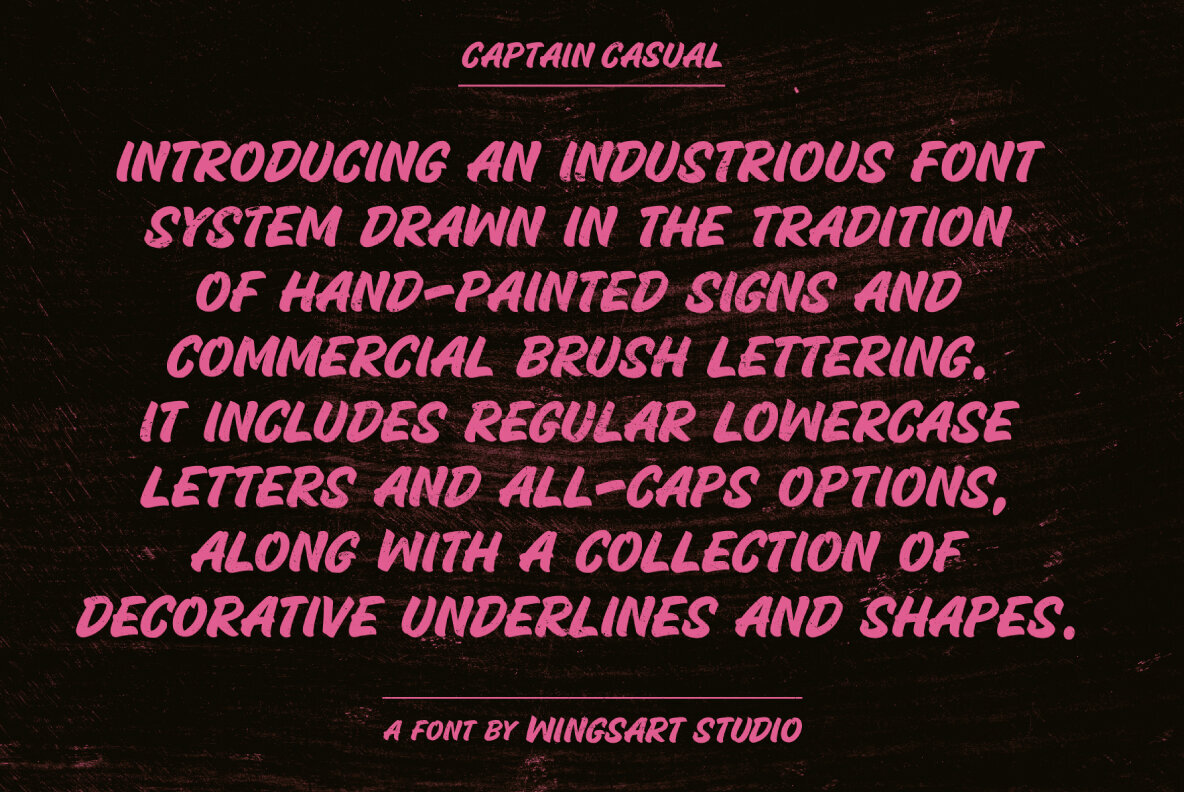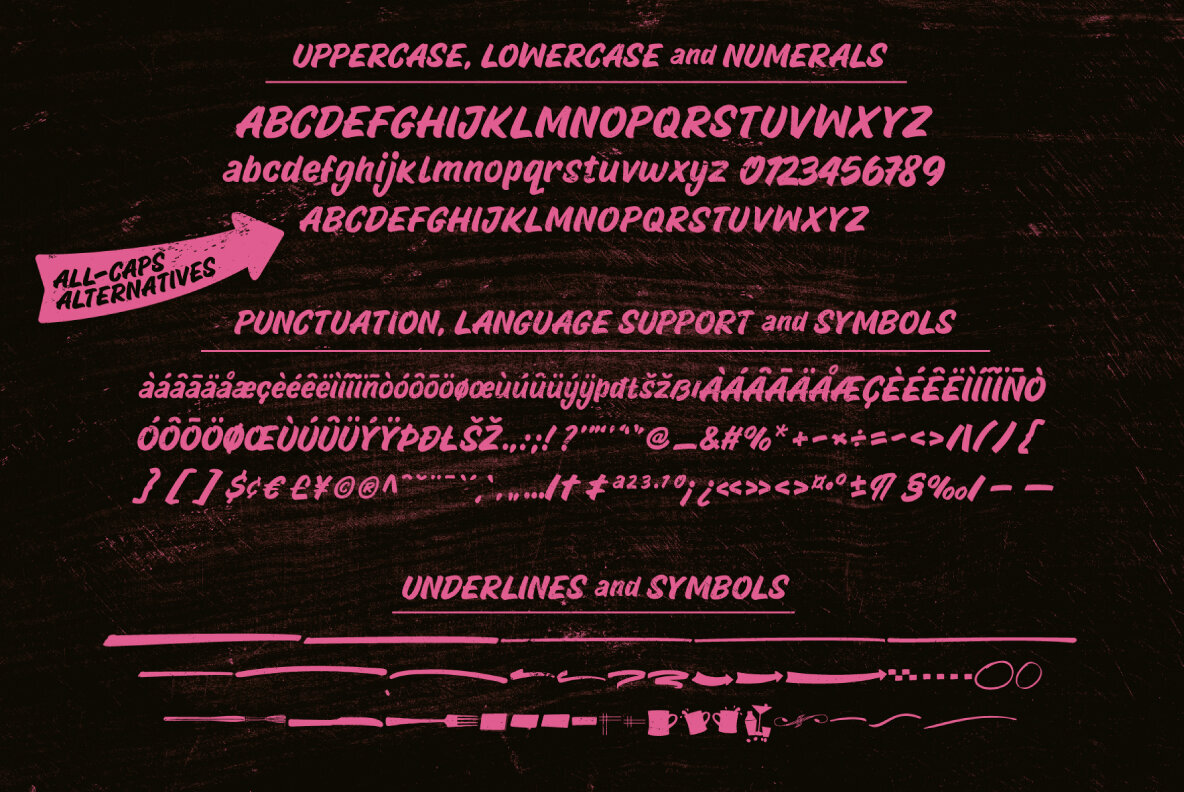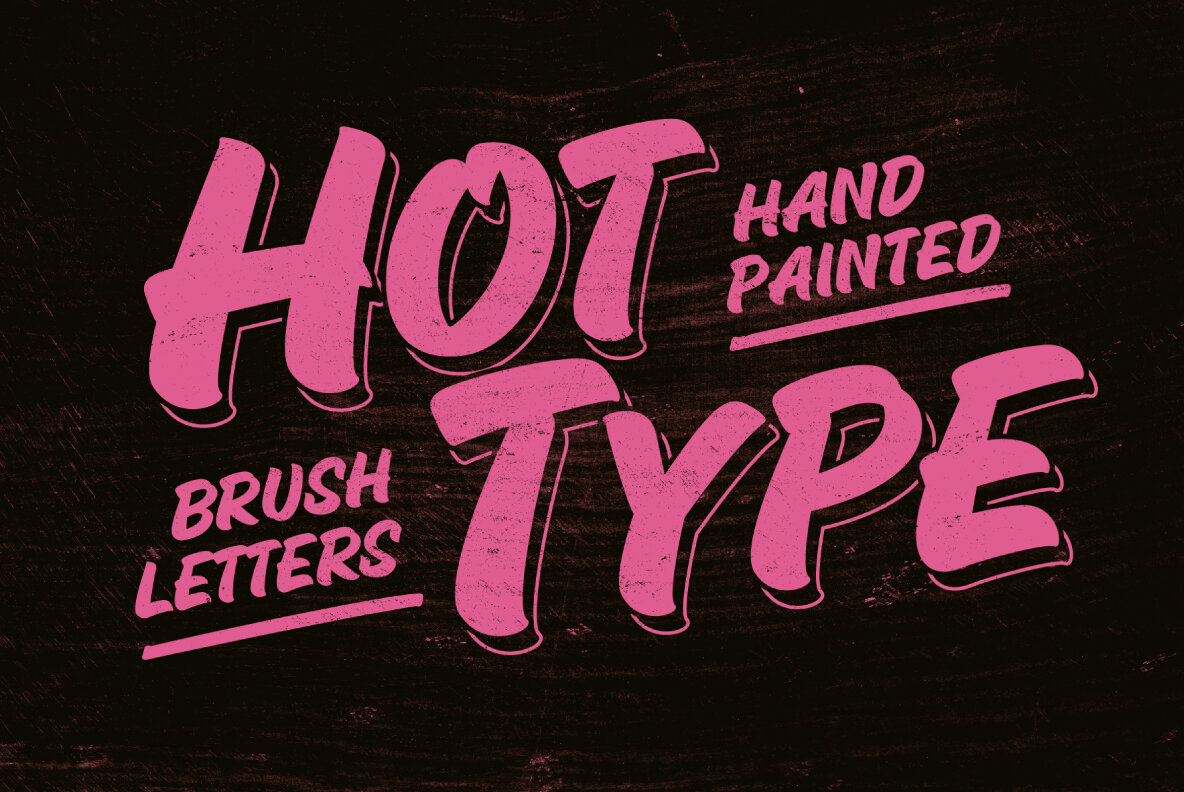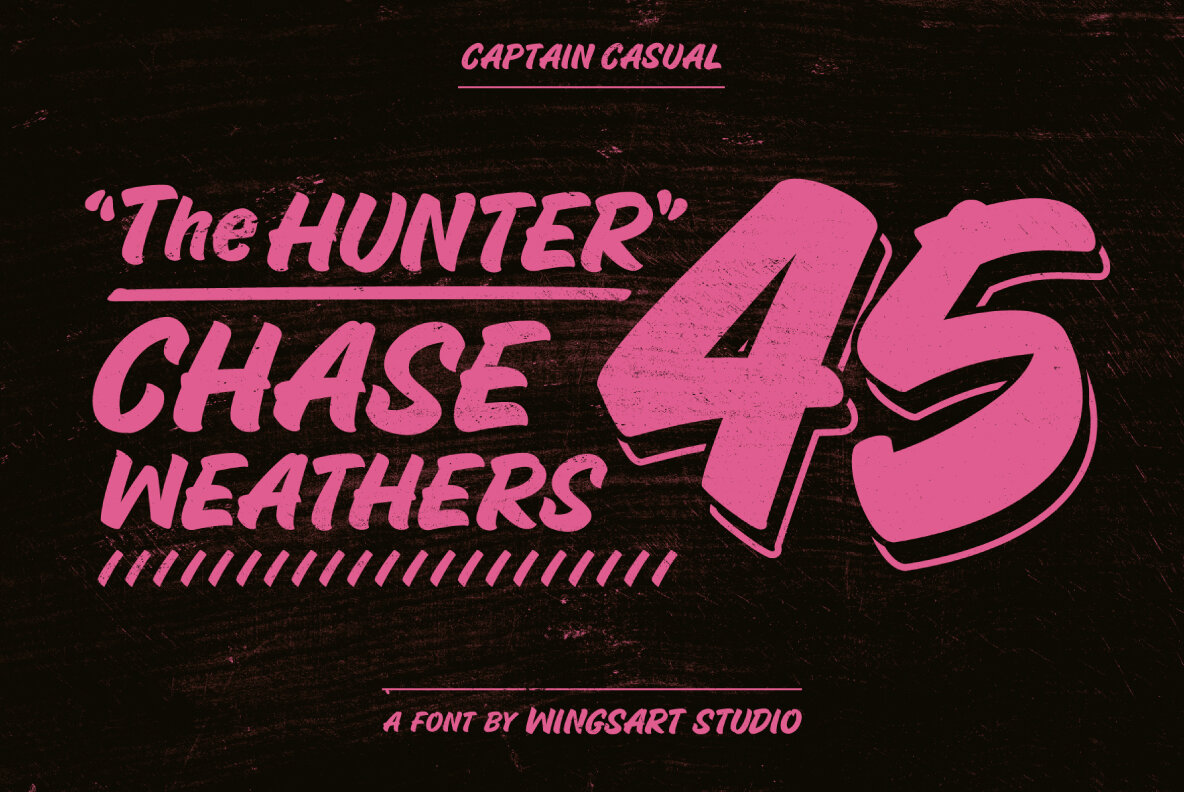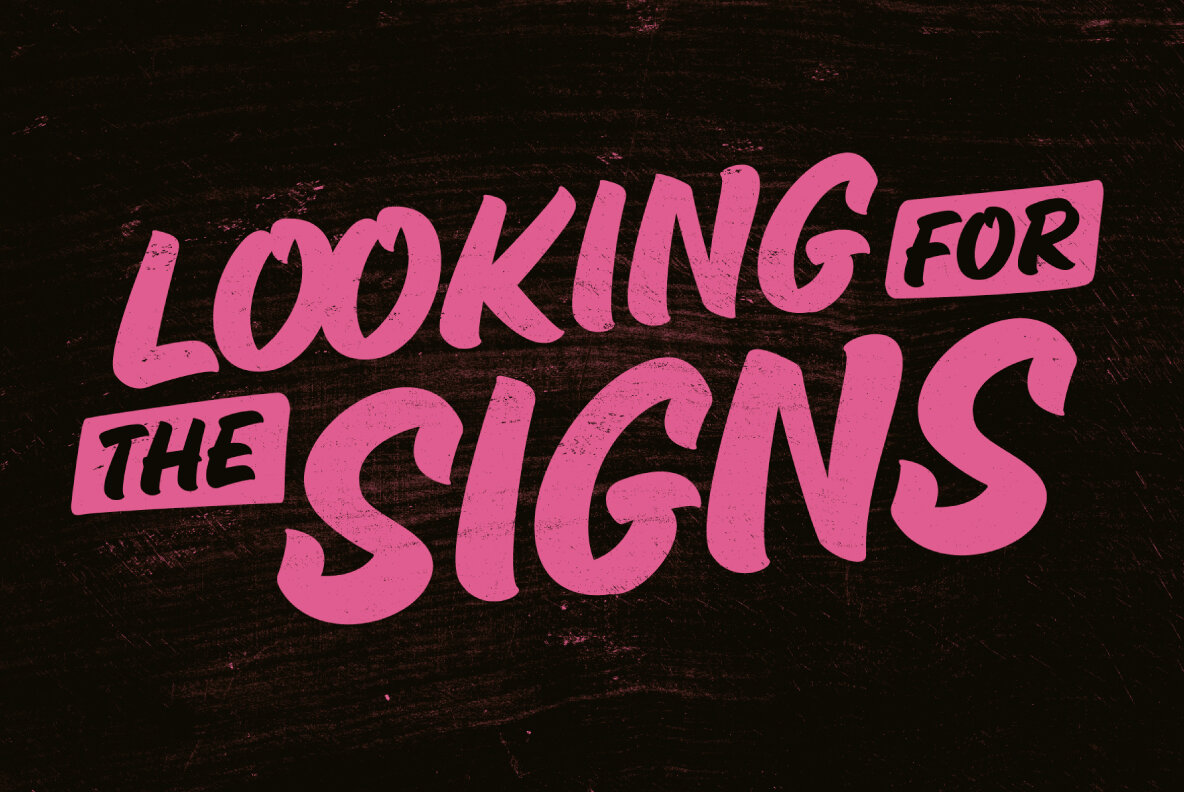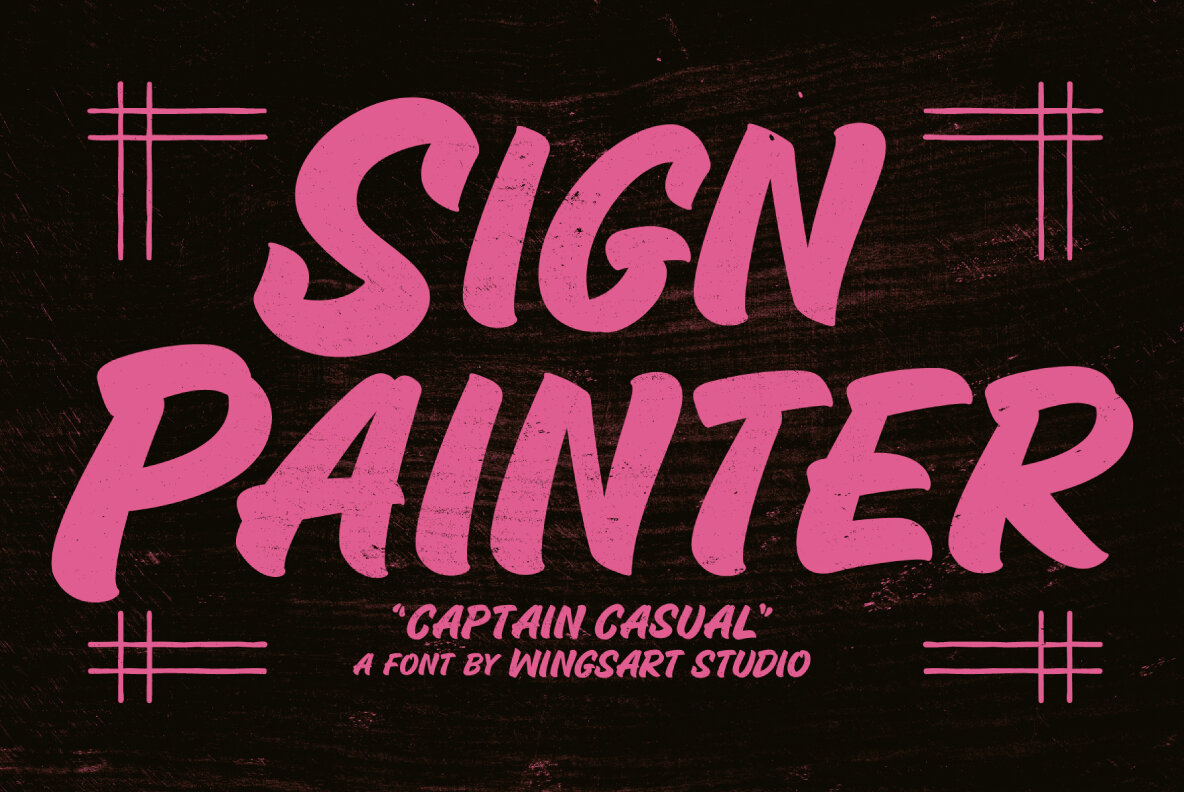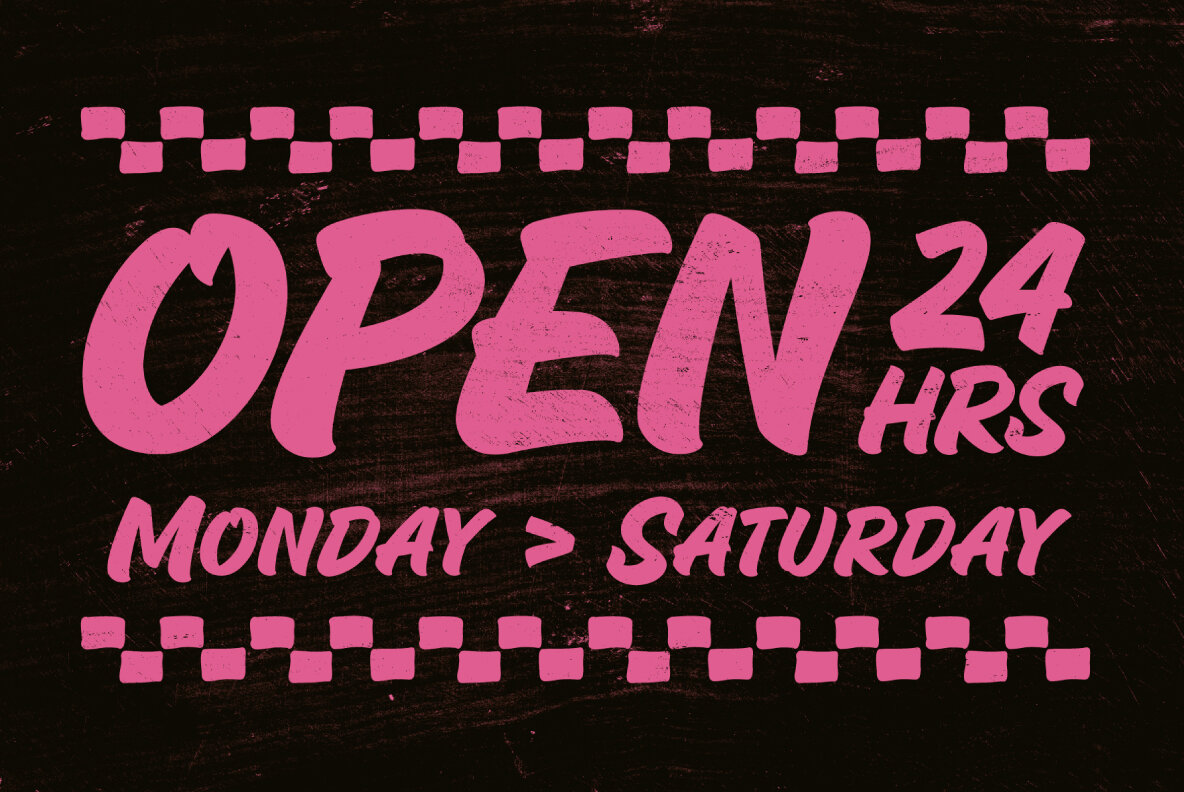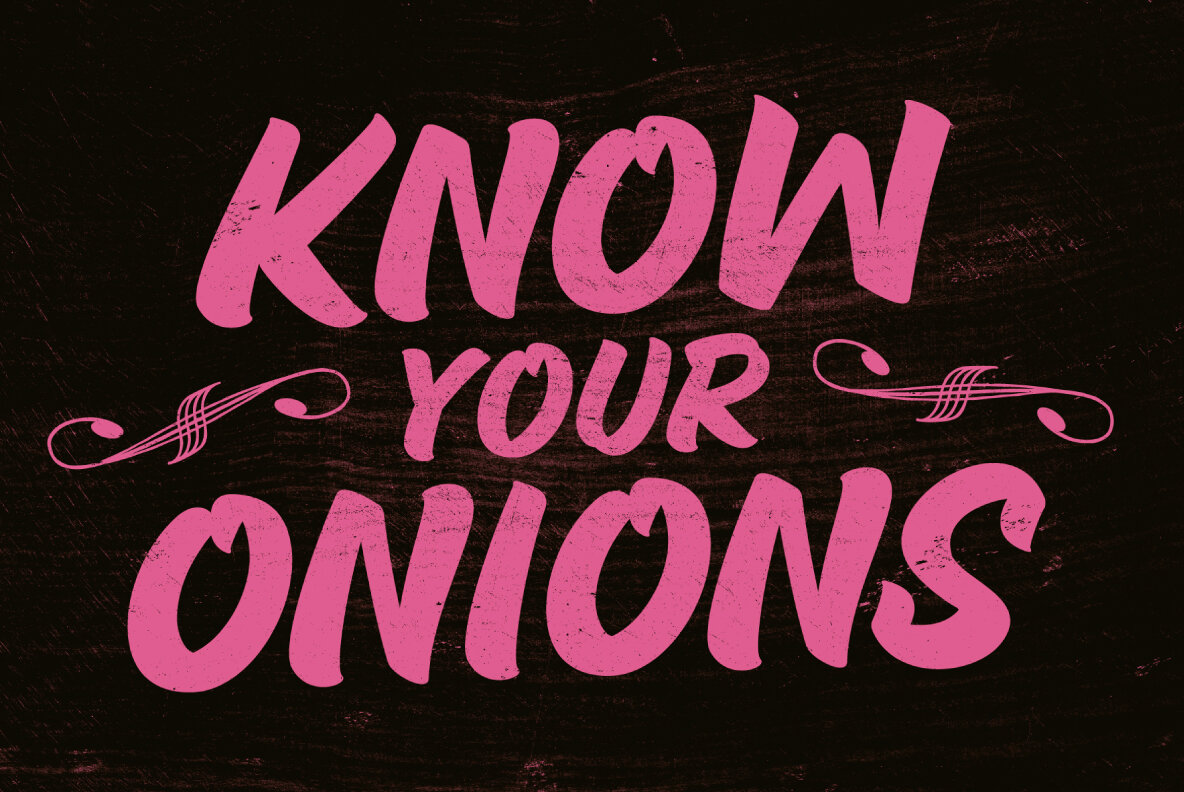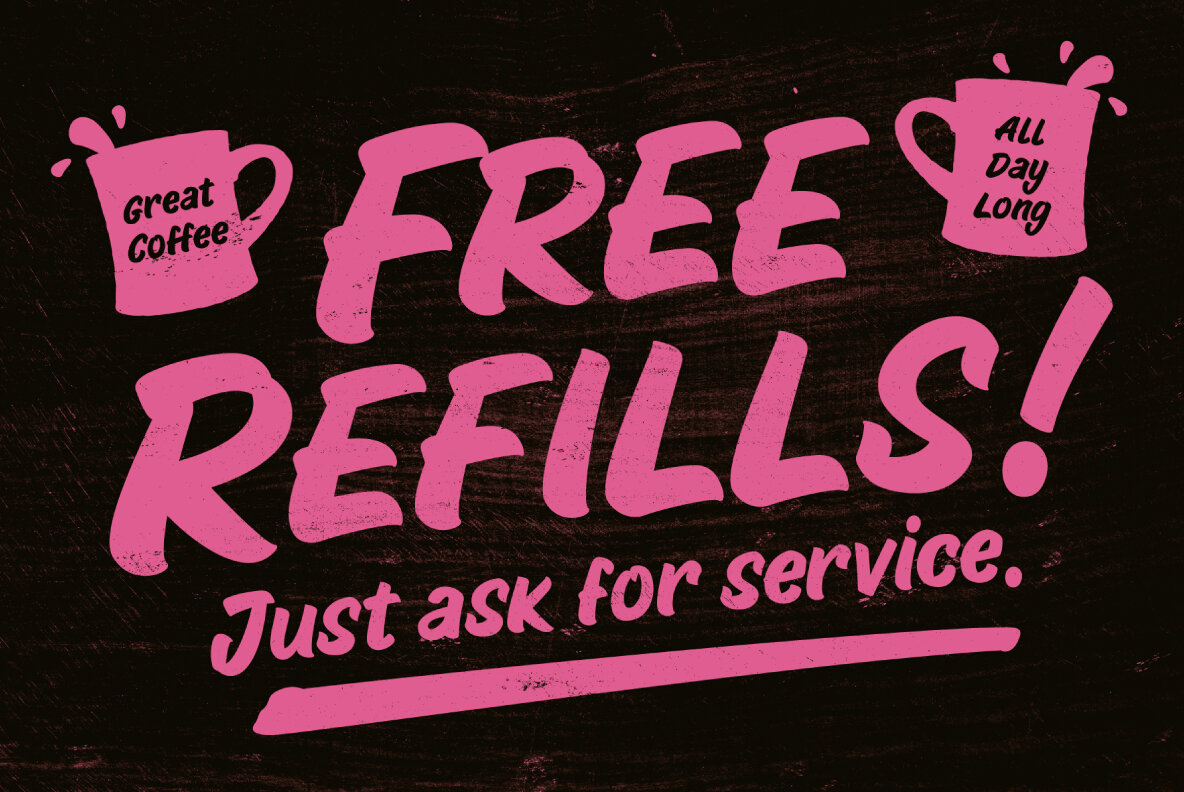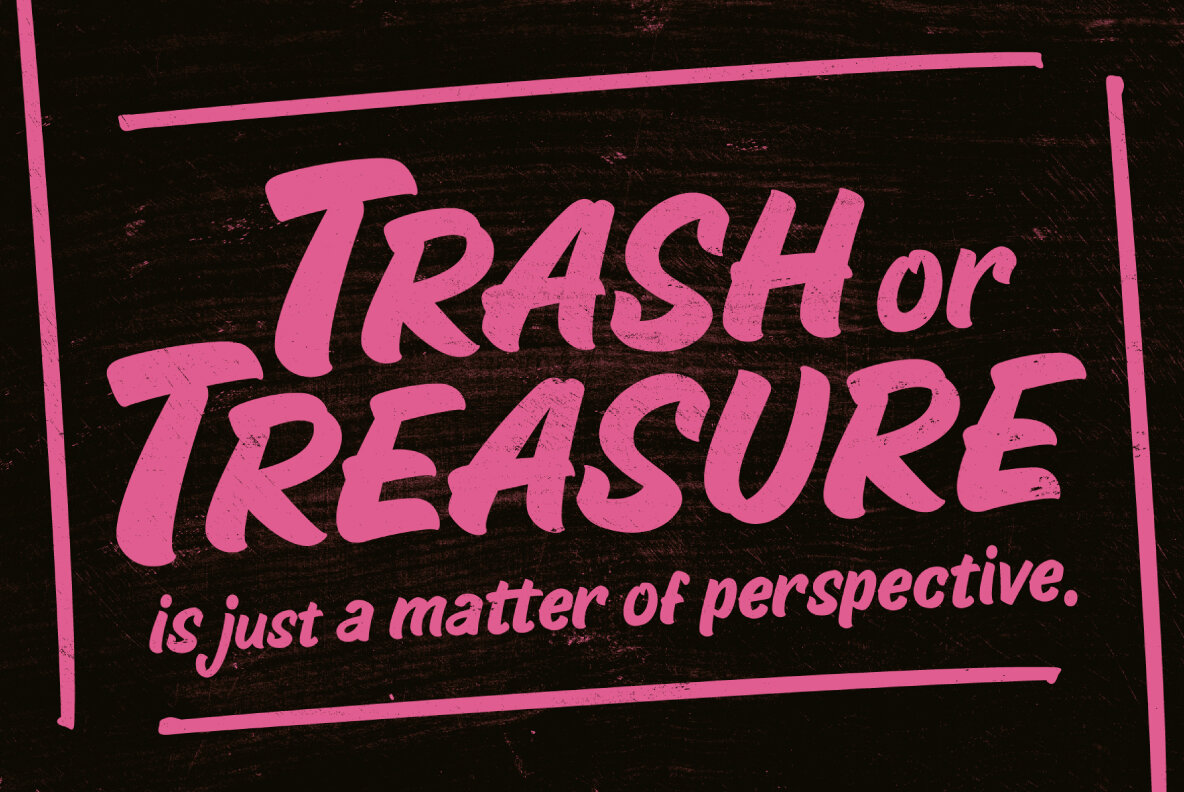
Captain Casual Font
Captain Casual Regular
Captain Casual AllCaps
Captain Casual Underlines
Captain Casual - A Brush Font in the Tradition of Classic Hand-Painted Signs Introducing an industrious font system drawn in the tradition of hand-painted signs and commercial brush lettering. Captain Casual includes regular lowercase letters and all-caps options, along with a collection of decorative underlines and shapes, making it a crucial addition to your toolbox. Seen decorating America’s most design-savvy storefronts, billboards and work vehicles, the brush-lettering style referred to as ‘Casual’ represents an essential tool in the sign painter’s arsenal, combining the appearance of laid-back cool with a legibility that means business. Through extensive research into the working processes and characteristics of hand-brushed lettering, i’ve created my own Casual font design, transferring the best of these human elements into an accessible font system that makes the ‘sign painter look’ available to all. Captain Casual Regular offers a complete set of uppercase and lowercase characters, along with numerals, punctuation, symbols and language support; plus the all-caps variant is ready and waiting in your toolbox when you need it. You’ll also find included a collection of decorative underlines and symbols for added flourishes. It’s a highly adaptable design that reads well in sizes large and small, perfect for everything from diners to drag strips and a worthy addition to your font library. Contents: - Captain Casual: Regular - Captain Casual: All-Caps - Underlines and Symbols
Based near Bristol, UK, Christopher King is the designer behind Wingsart Studio, a creative practice specializing in hand-drawn lettering and bespoke typography for film and television. Acting as both a working portfolio and an independent font foundry, Wingsart Studio showcases King’s deep appreciation for mi...